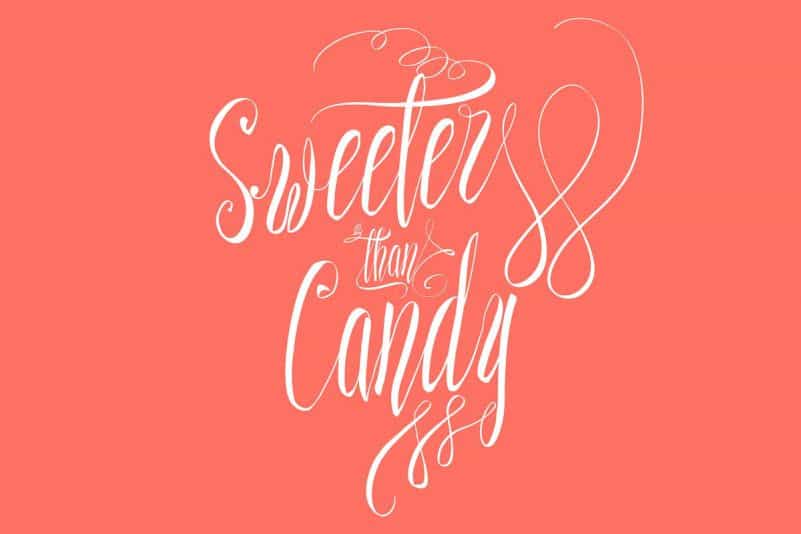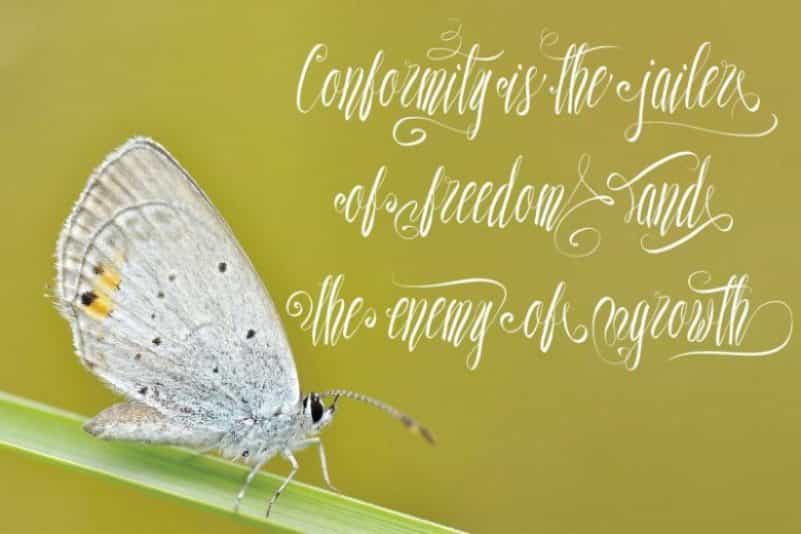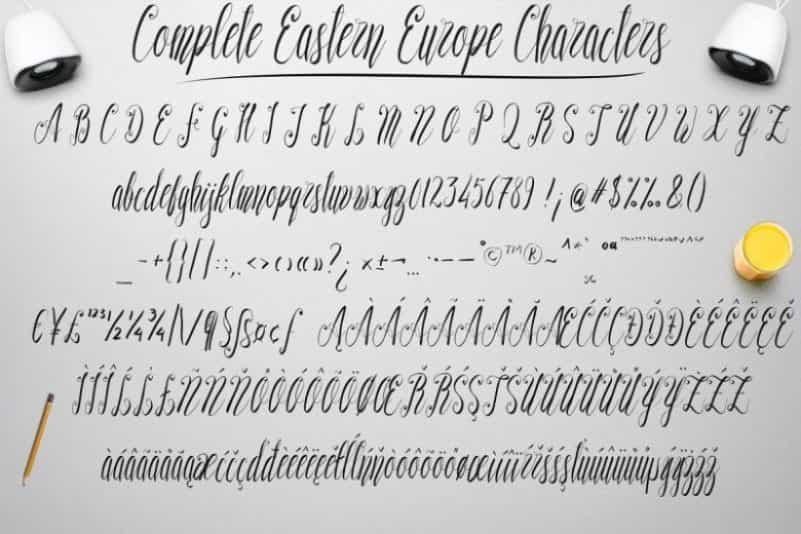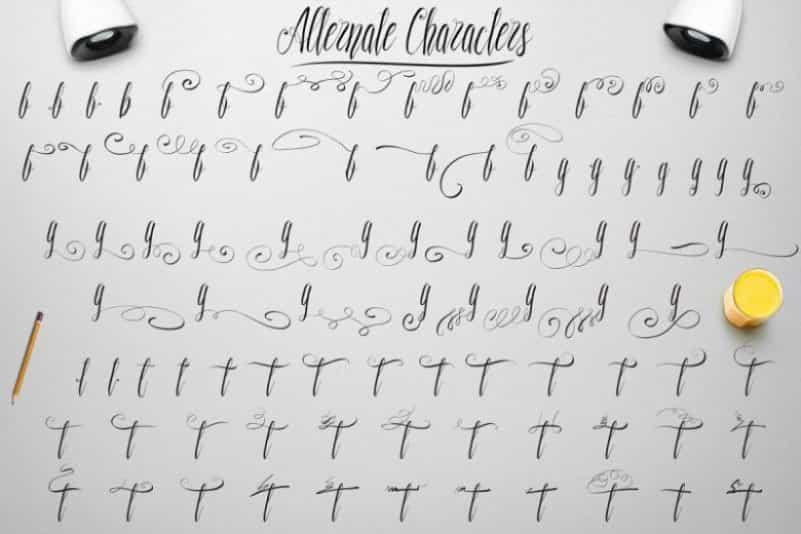
Introducing the elegant calligraphy script font that is unique: “Sweeter than Candy Font”. It is sweet, neat, and classy font, with a touch of sex appeal, sophistication, simplicity and legibility because there are many interrelated letters. It also provides a number of other types of style that are suitable for many letters. It is designed and distributed by Royaltype specifically for the use in its magazine.